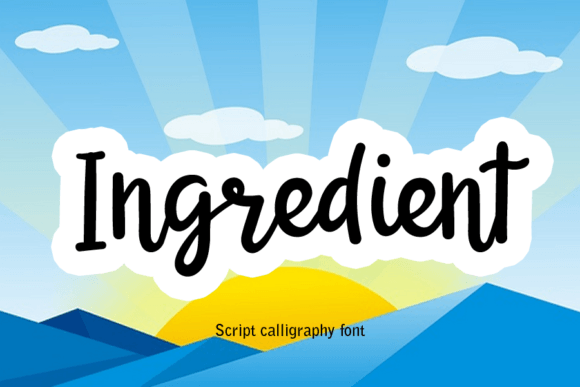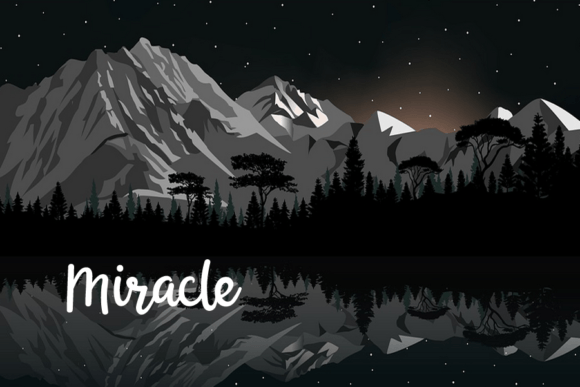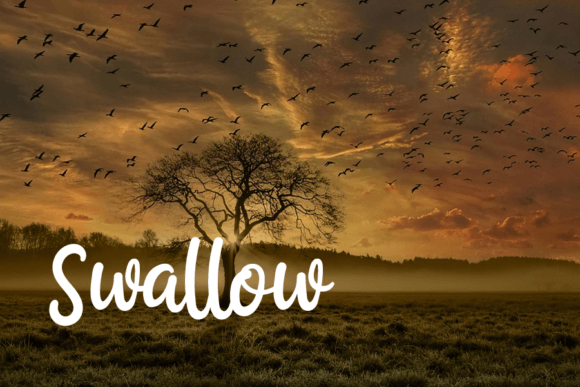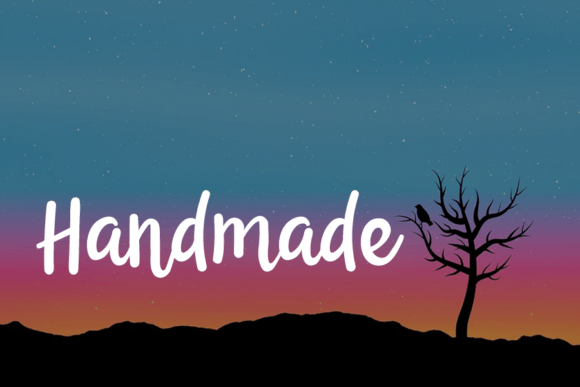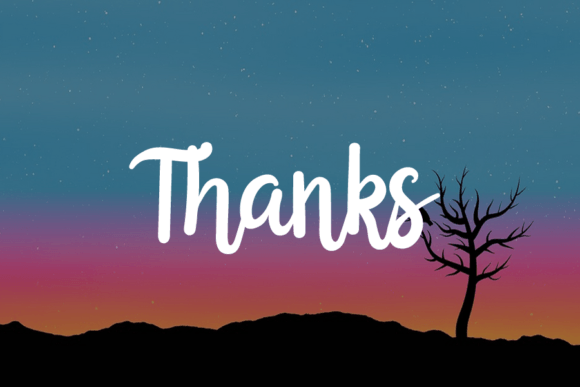
Ingredient Font
About Ingredient Font
“Ingredient” is a contemporary and approachable handwritten font that combines modern aesthetics with a friendly vibe. Its versatile and inviting style makes it a valuable addition to your creative toolkit, suitable for a wide range of projects, from crafts and digital design to presentations and greeting cards. This font has the potential to become your go-to choice, regardless of the occasion or design challenge.
The distinctive charm of “Ingredient” is rooted in its modern yet approachable lettering. The clean lines and warm character of this font create a welcoming and relatable visual experience. It’s a font that invites connection with your audience, making it an ideal choice for projects that aim to establish rapport.
One of the remarkable features of “Ingredient” is its versatility. Whether you’re using it for crafting, digital design endeavors, professional presentations, or creating heartfelt greeting cards, “Ingredient” adapts effortlessly to your creative vision.
The friendly and modern lettering of “Ingredient” opens up a world of possibilities for your design projects. Whether you’re a professional designer seeking a versatile font for your client work or an enthusiast who enjoys crafting and design as a personal passion, “Ingredient” is a reliable and accessible choice.
In summary, “Ingredient” is not just a font; it’s a versatile and friendly creative tool that can enhance your projects. Embrace the warmth, approachability, and adaptability of “Ingredient,” and watch your creativity flourish, no matter the occasion or design challenge you face.